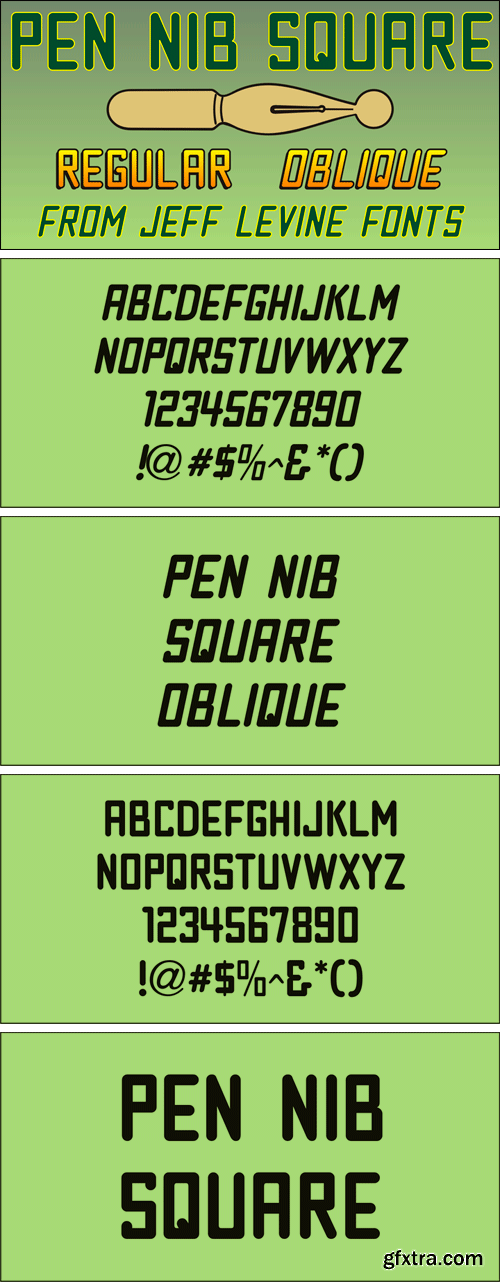
The idea started with the 1934 sheet music of “Mazurka Amabile”. Its hand drawn title had most of the letters rendered in a rectangular shape [‘square’ in the sign trade] that featured rounded corners and terminals made by the shape of the lettering pen nib.